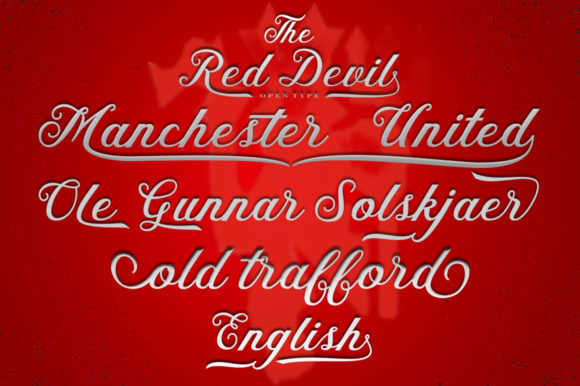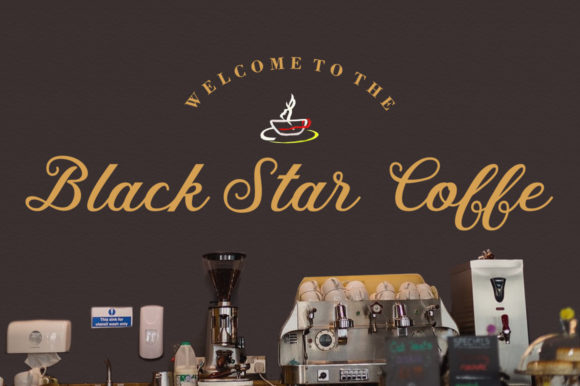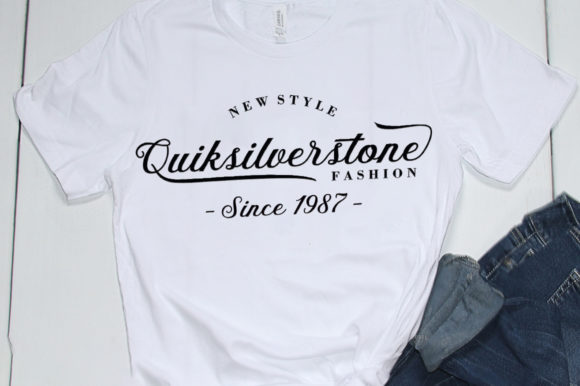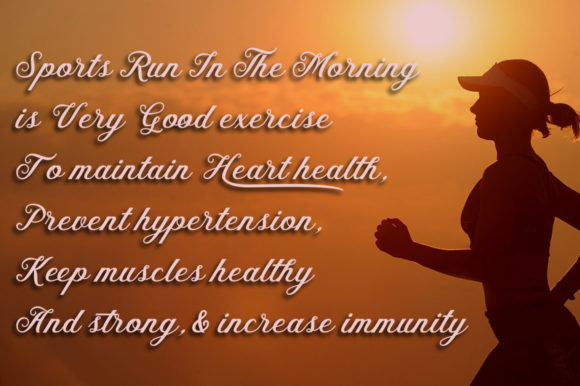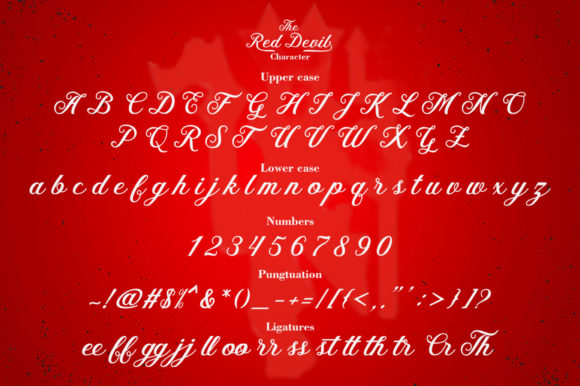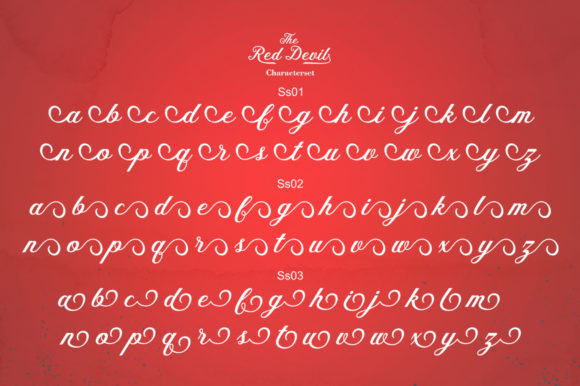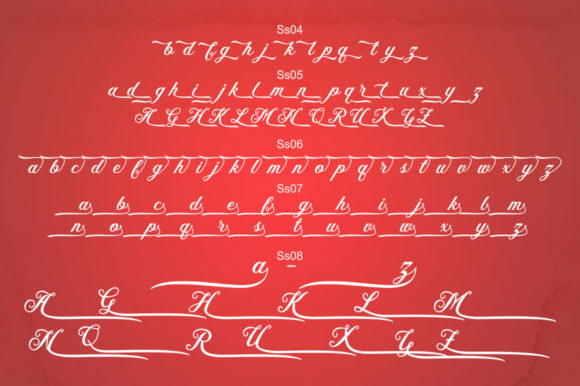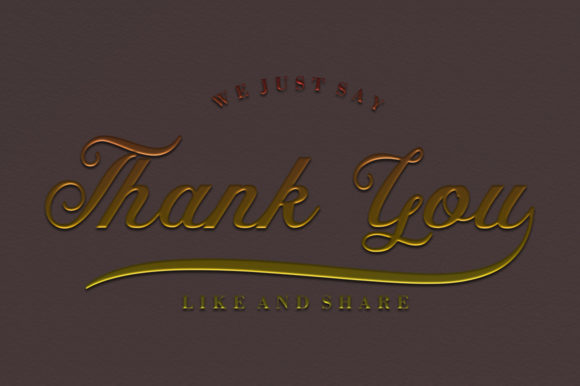
The Red Devil Font
About The Red Devil Font
The Red Devil is a cleans and suspiciously playful monoline script. It will add a devious and elegant feel to any design idea!